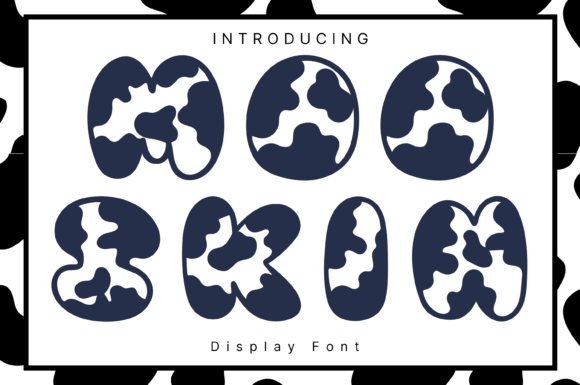
Behold, Moo Skin Font, an eccentric decorative treasure waiting to transform your creative visions into captivating realities. With its boundless versatility, it effortlessly adapts to an astonishing array of projects, igniting your imagination and leaving a lasting impression on all who encounter your designs. Unleash your artistic prowess and witness how Moo Skin Font elevates your creations, making them shine brighter than the stars.
Step into a world of enchantment where whimsy and fun dance together seamlessly, creating a typographic masterpiece that reflects your unique personality and style. Allow Moo Skin Font to guide you on an artistic odyssey, where every letter tells a captivating tale. Be it a personal resume that demands attention, a marketing campaign that captivates audiences, or a social media post that sparks conversations, Moo Skin Font rises to the occasion, leaving a trail of admiration in its wake.
Imagine crafting a resume that speaks volumes about your creativity and professionalism. Moo Skin Font empowers you to present your skills and experiences in a manner that commands attention, setting you apart from countless other applicants. Its whimsical charm invites recruiters to delve deeper into your qualifications, compelling them to envision you as an asset to their team.
For those seeking to leave an indelible mark in the realm of marketing, Moo Skin Font emerges as an indispensable ally. Its ability to captivate audiences with its playful spirit and elegant curves makes it the perfect choice for captivating campaigns. Whether it's eye-catching advertisements, captivating brochures, or enticing social media graphics, Moo Skin Font ensures your message resonates with your target audience, leaving them spellbound and eager for more.
As a font family that embraces uniqueness and innovation, Moo Skin Font seamlessly blends into the digital realm, gracing websites and online platforms with its captivating presence. Its distinct lettering adds a touch of whimsy and sophistication, engaging visitors and inviting them to explore the depths of your digital haven. Embrace the power of Moo Skin Font and watch as it transforms your online presence into a captivating tapestry of visual delight. Embrace the power of Moo Skin Font, and watch as it transforms your online presence into a captivating tapestry of visual delight.